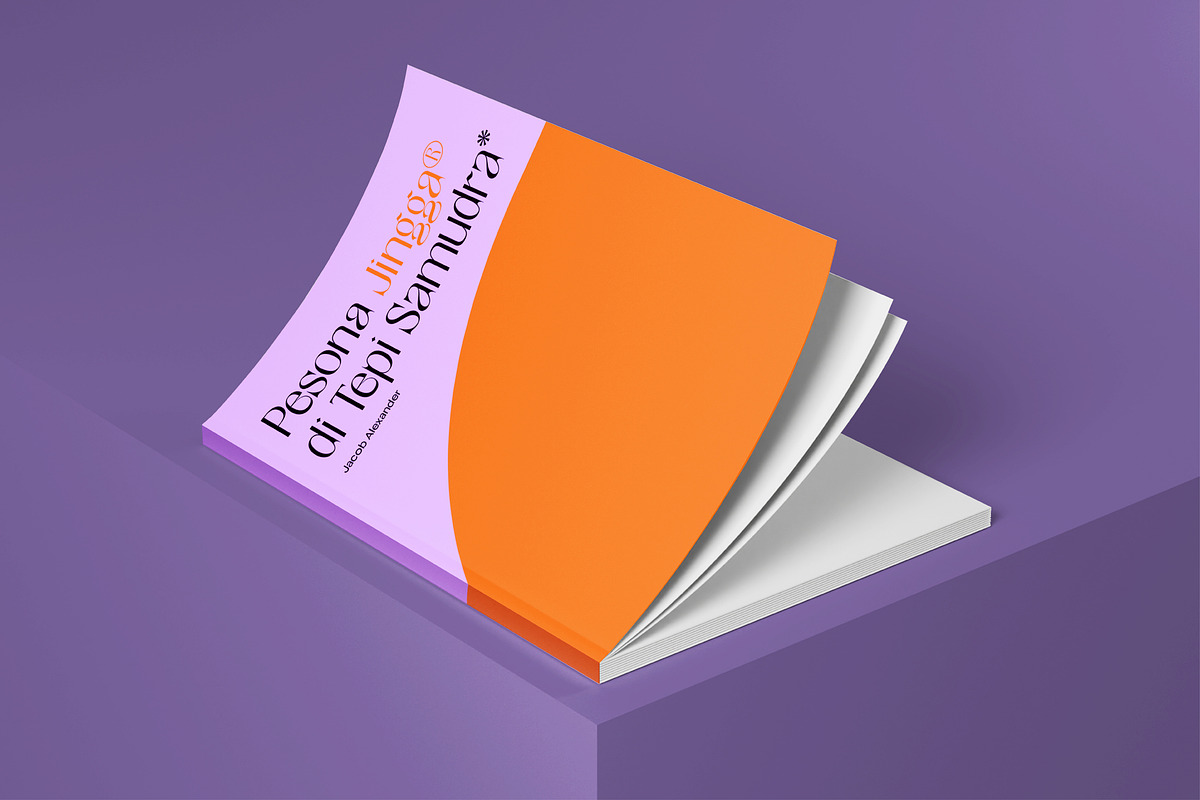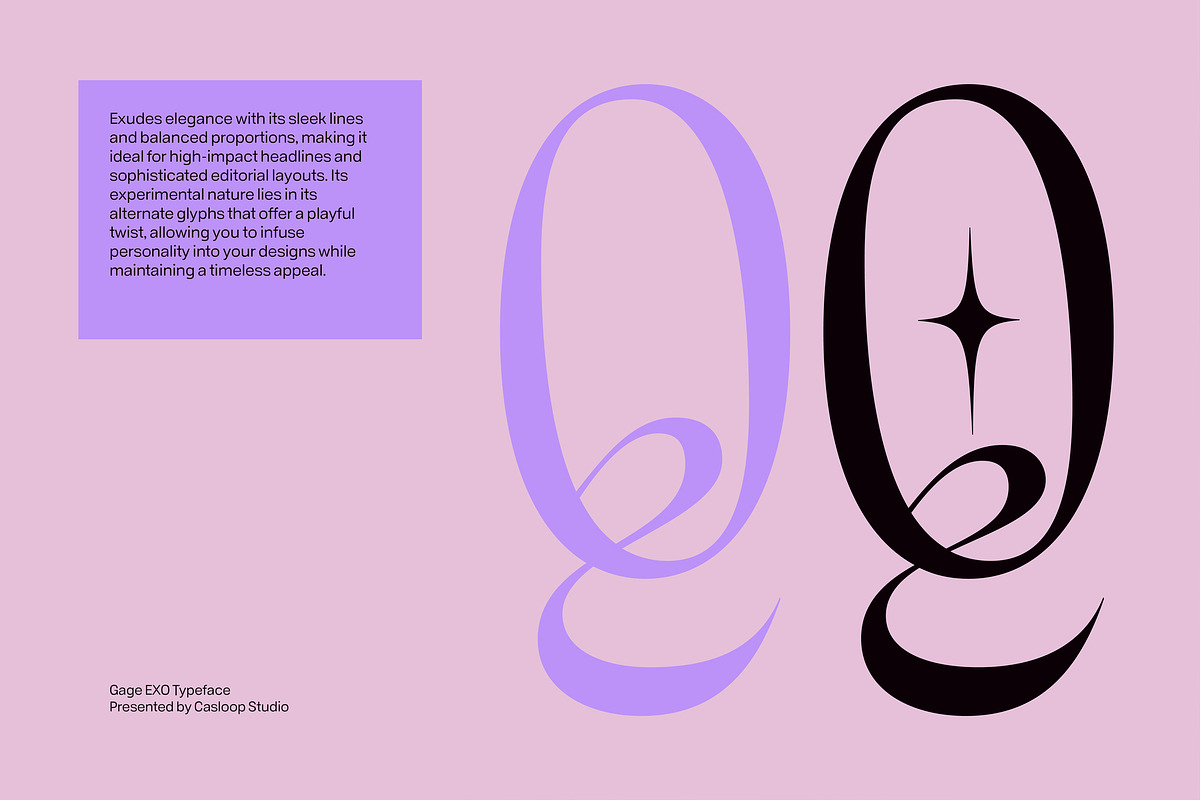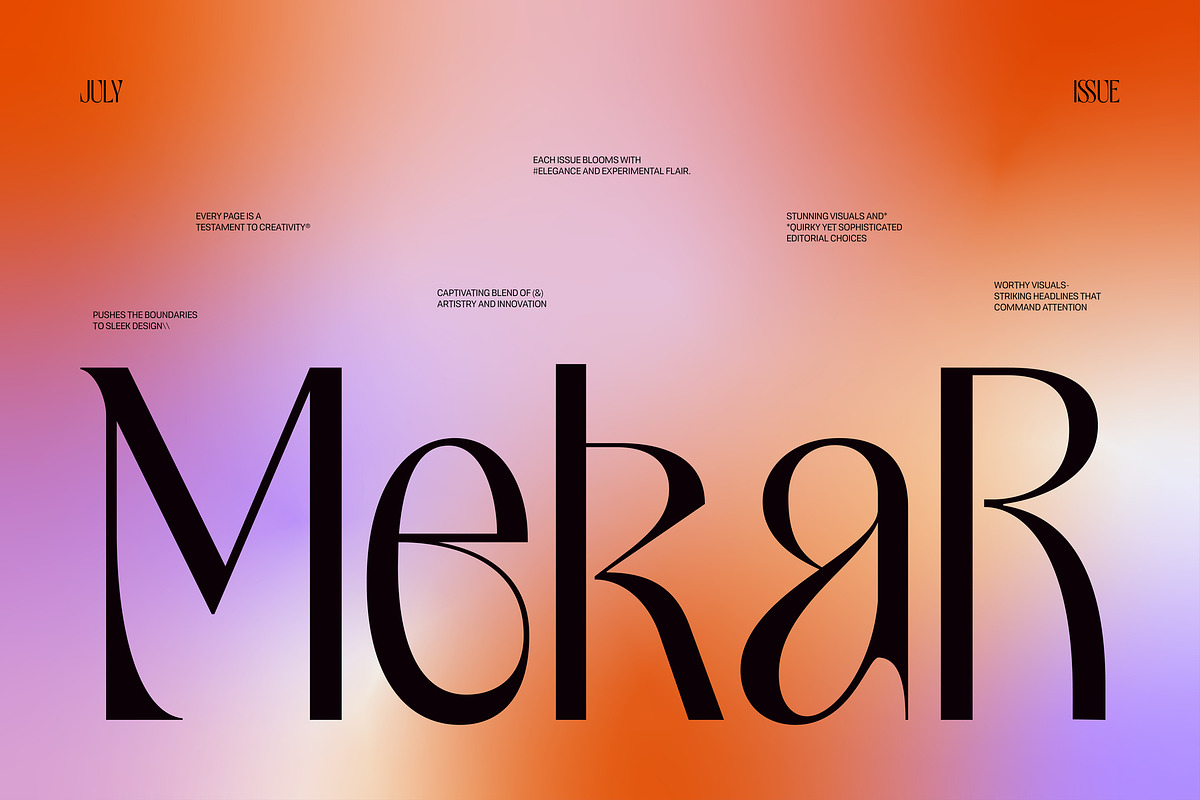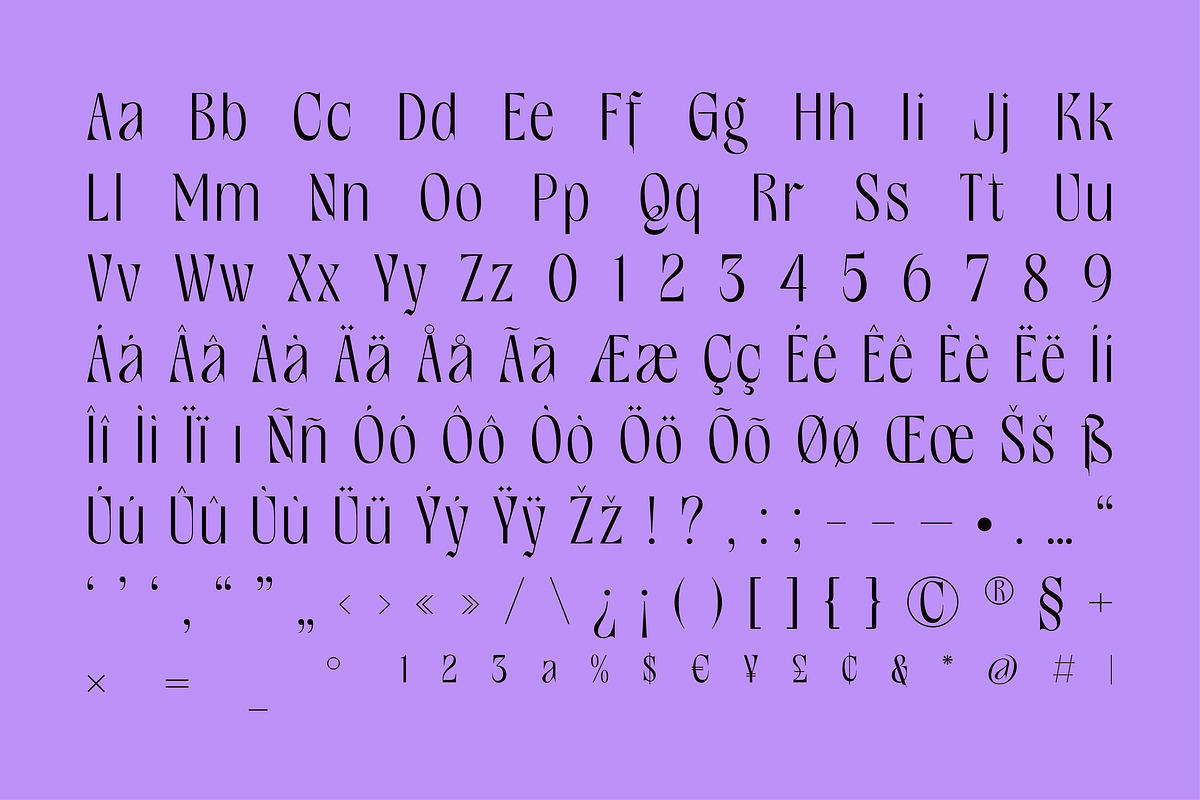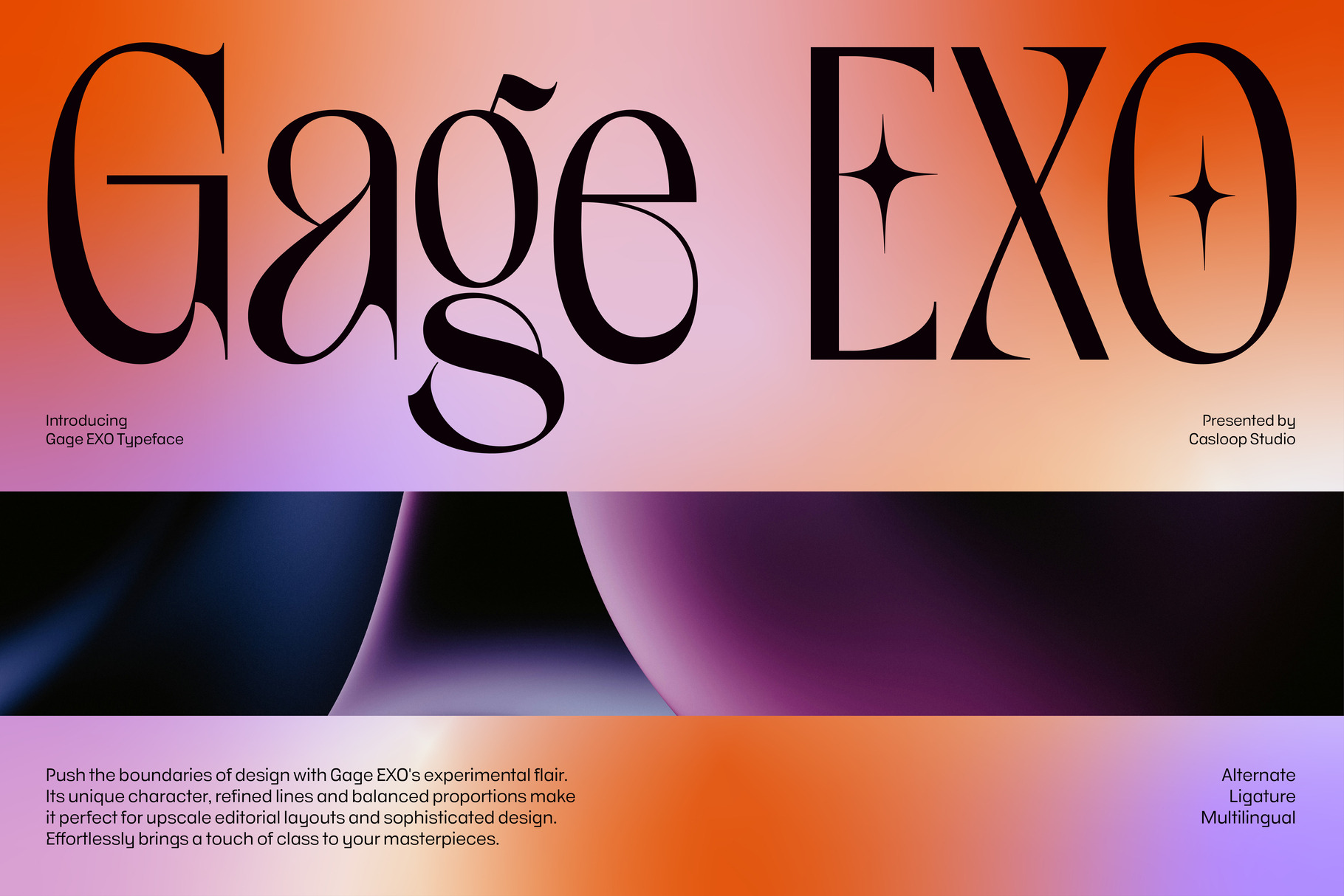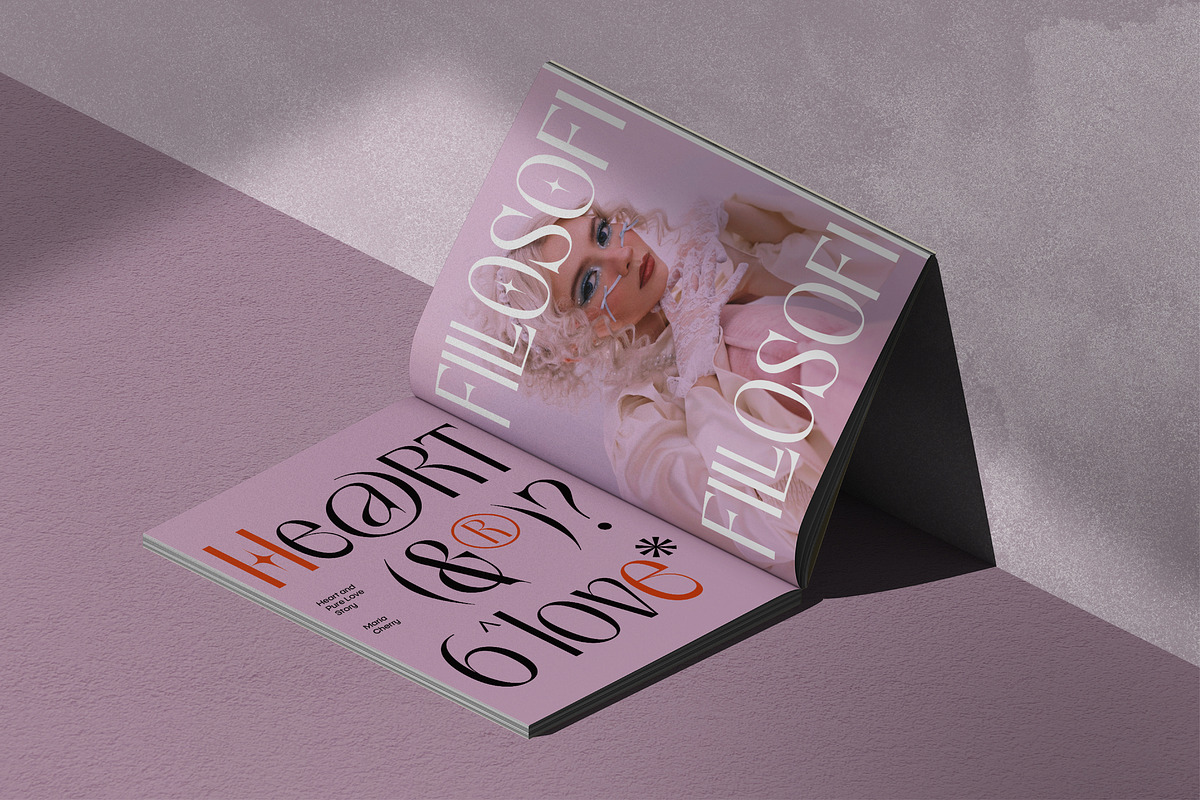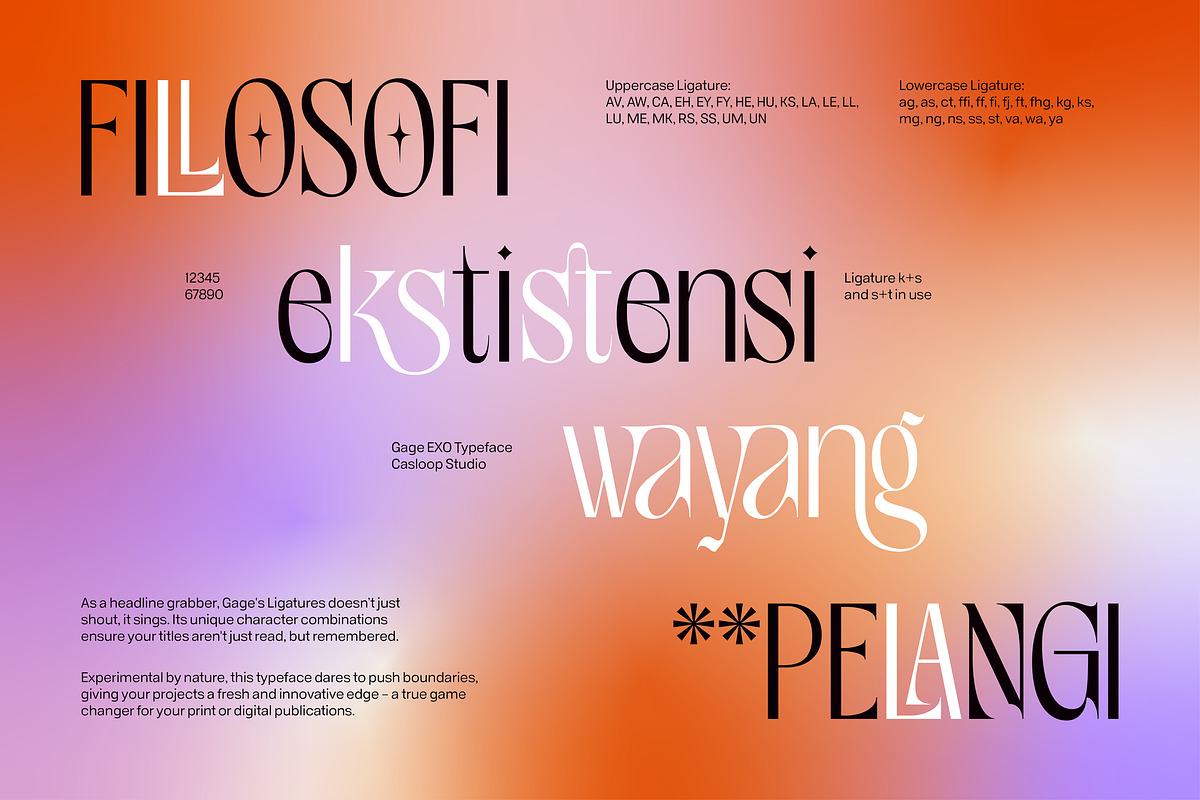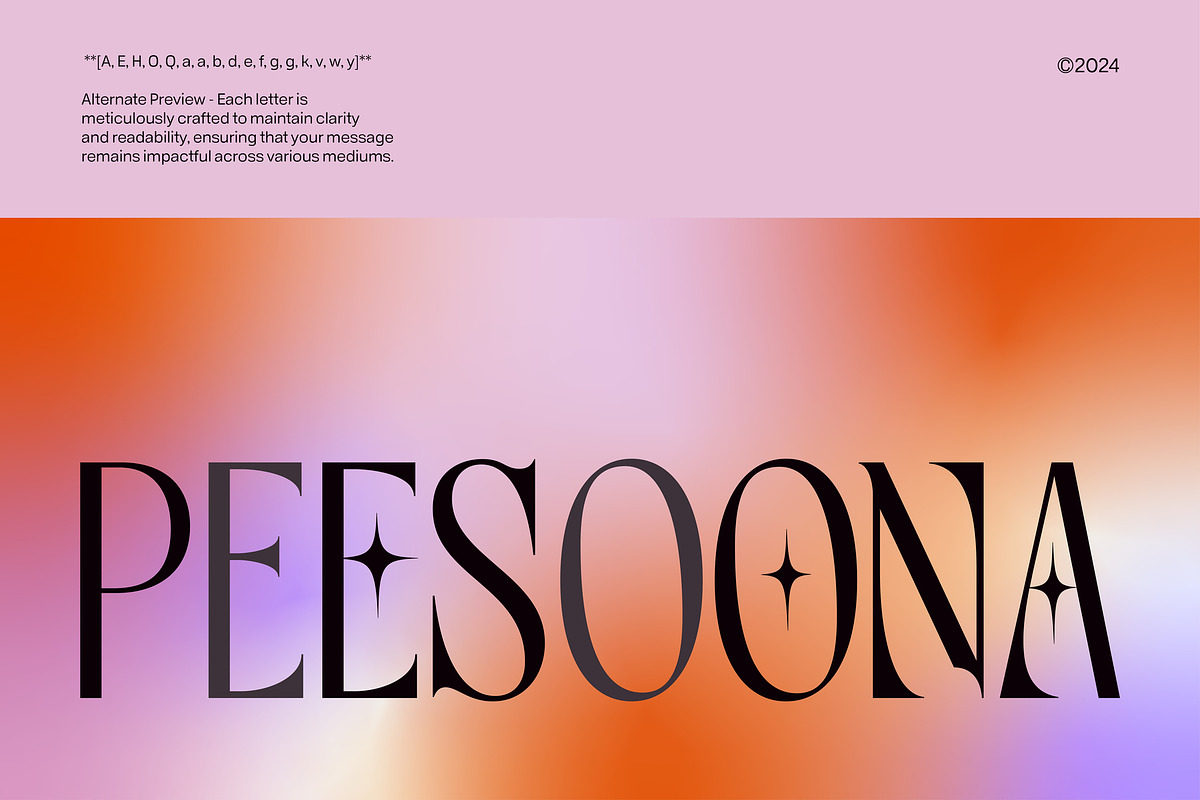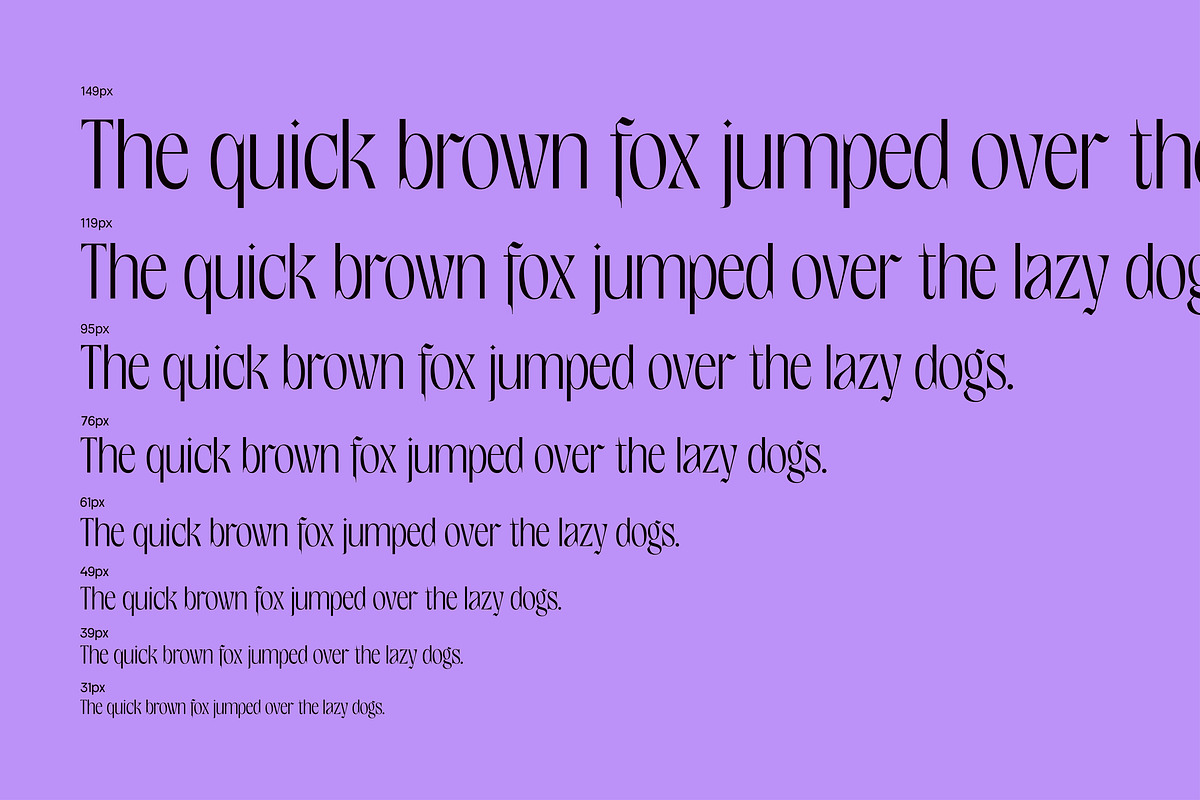
Gage EXO Elegant Display Font
Introducing Gage EXO, a bold evolution in display sans serif fonts. Designed for versatility across editorial design, posters, websites, packaging, logos, and more, it blends elegance with a quirky, experimental twist that's perfect for today's digital media visuals.
Its superior vintage charm meets contemporary demands, offering dynamic and impactful typography for expressive branding and eye-catching book covers. Gage EXO encapsulates the essence of Art Nouveau and Art Deco styles, appealing to both retro enthusiasts and modern trendsetters alike.
This font's unique character lies in its ability to fuse vintage aesthetics with a youthful, Gen Z appeal. Whether used for fashion titles, headline pop-ups, or any creative project, Gage EXO stands out with its distinctive blend of elegance and quirkiness.
Explore the possibilities of Gage EXO — where vintage meets now, and timeless sophistication meets avant-garde experimentation. Perfect for designers seeking a font that not only speaks volumes but also defines trends in typography.